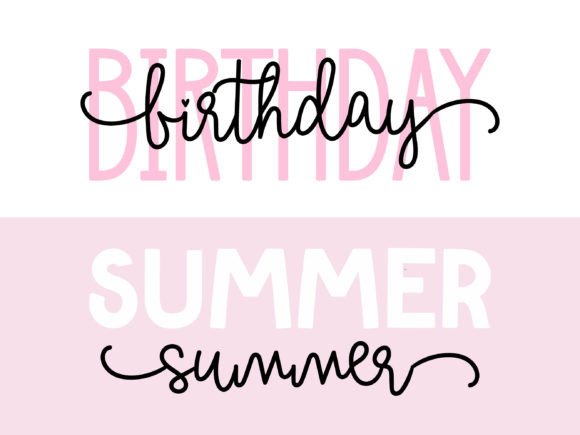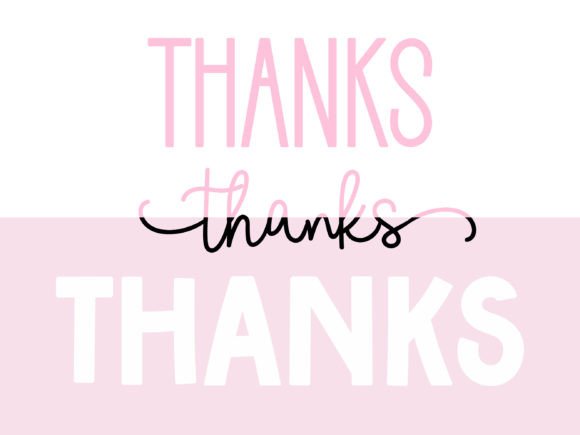
More good vibes is a cute and lovely handwritten font duo (script and sans). Incredibly versatile, this font fits designs, elevating them to the highest levels. Dream Wish duo includes single line script font (with swash). Add this font to your favorite creative ideas.
More Good Vibes Duo Font